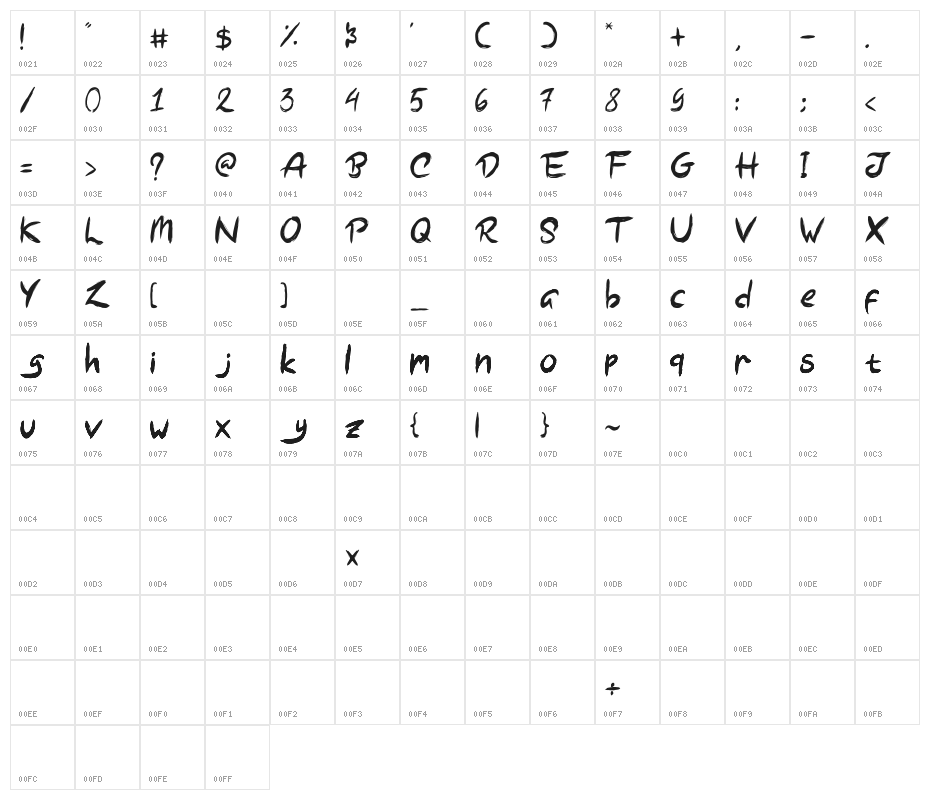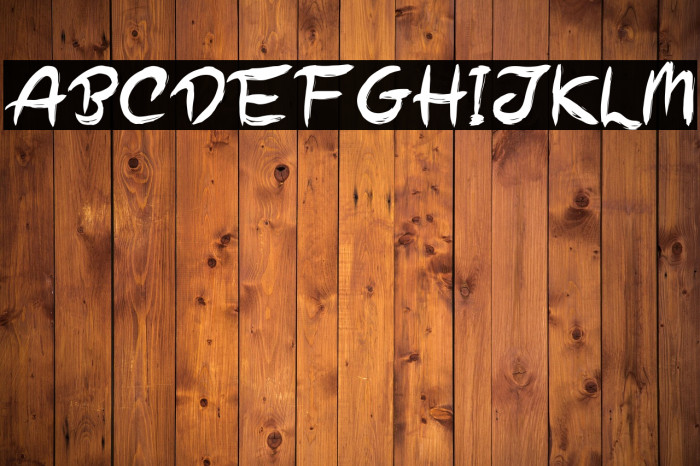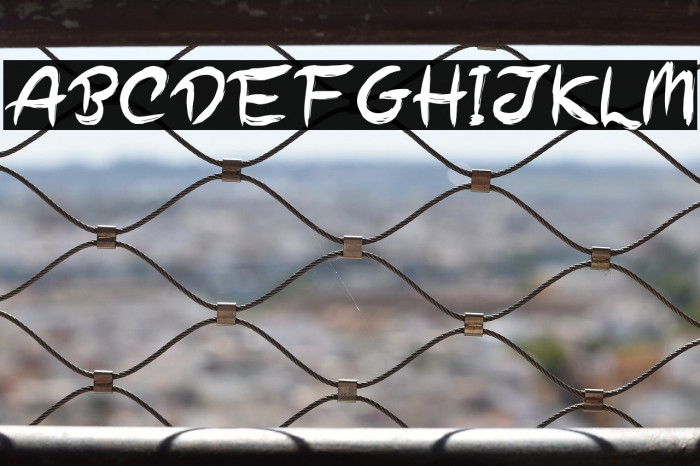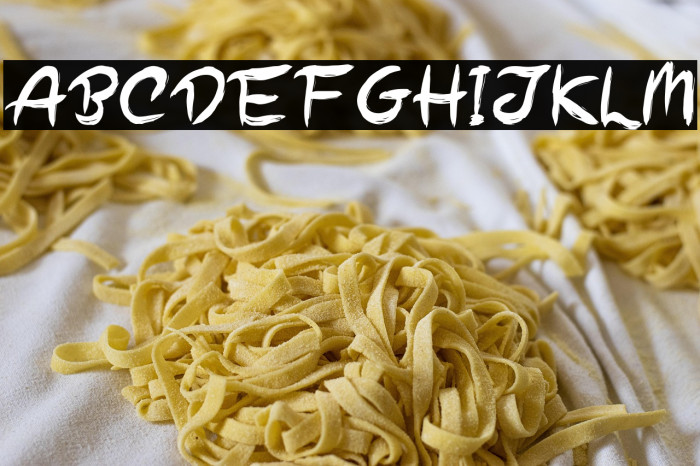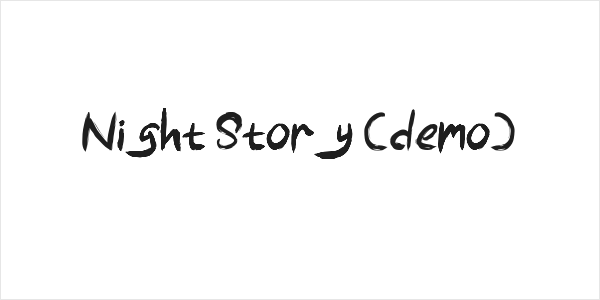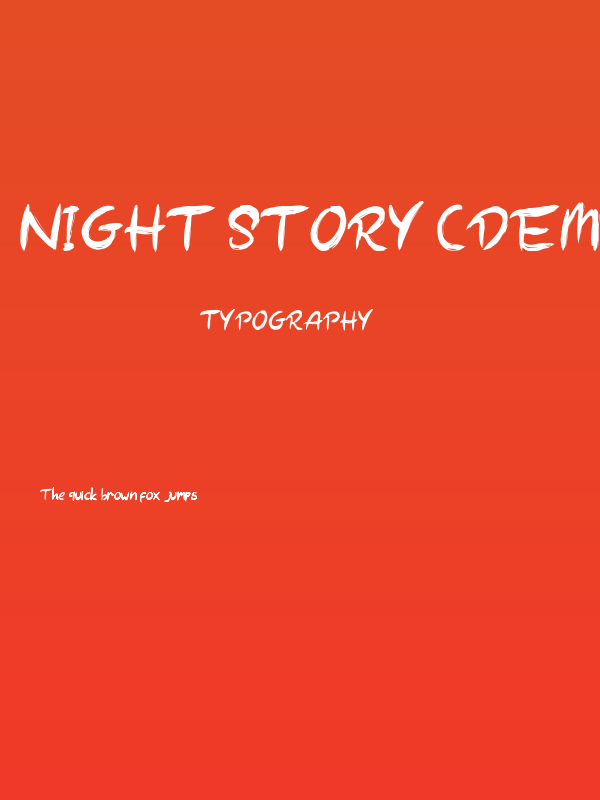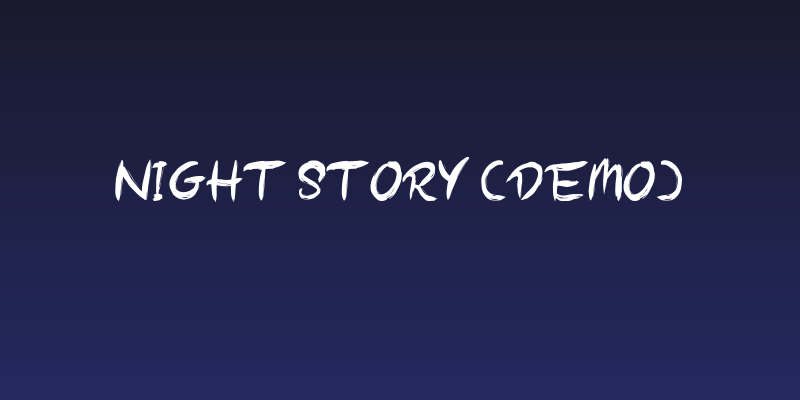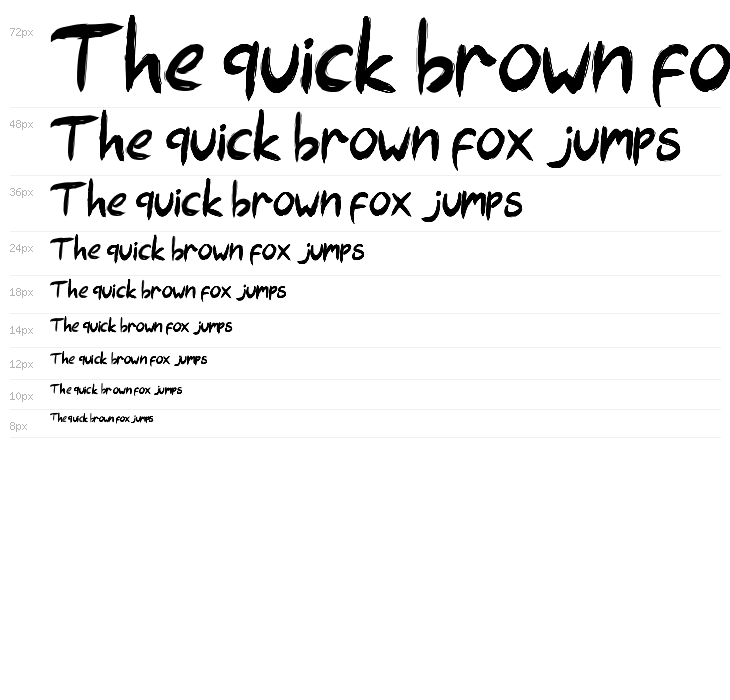
Night Story (demo) Font
Night Story (demo) Description
This font features a bold and dynamic handwritten style, characterized by its fluid and expressive strokes. The letters exhibit a sense of motion and energy, with varying thickness that adds a lively and artistic flair. The uppercase and lowercase letters maintain a consistent style, while the numbers and special characters complement the overall aesthetic. The font's design is reminiscent of brush lettering, making it ideal for projects that require a personal and creative touch. Its unique appearance can capture attention and convey a sense of individuality and creativity.